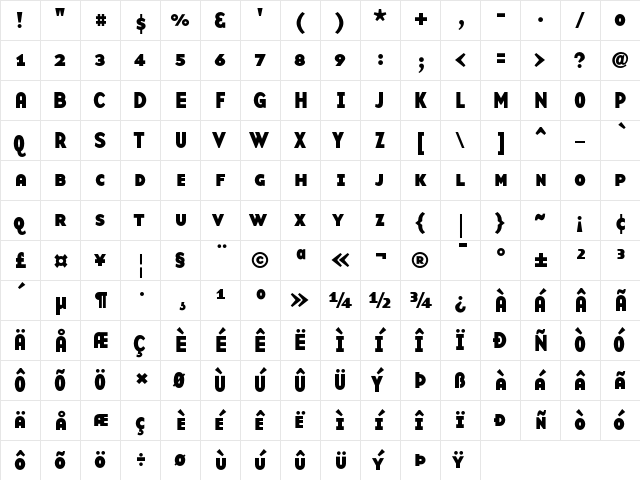
BaseTwelveSansSCB Roman Font Preview
BaseTwelveSansSCB Roman
BaseTwelveSansSCB Roman Font Details
Design Context for BaseTwelveSansSCB Typeface
BaseTwelveSansSCB offers clean, dependable letterforms without strong stylistic allegiance, making it a practical choice for designers who need flexibility.
Pro Tip: Pair BaseTwelveSansSCB with a font of contrasting weight or personality to build a more expressive typographic hierarchy.